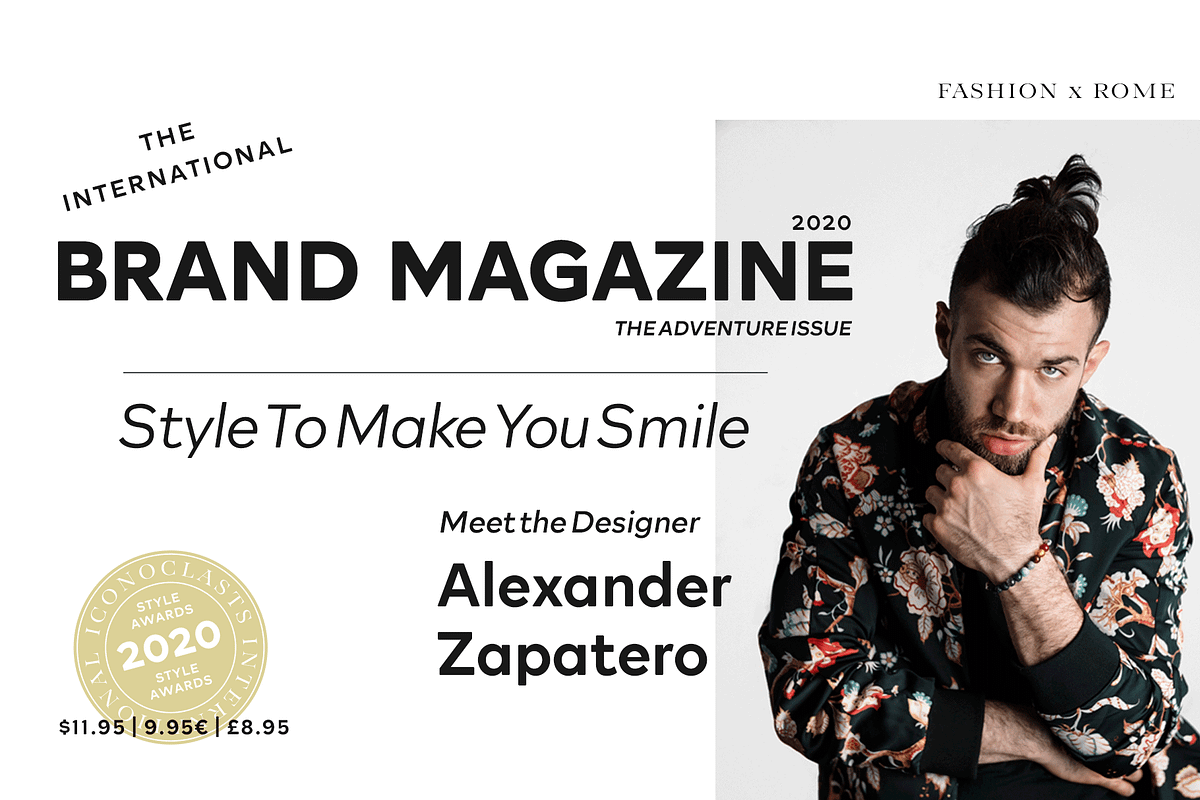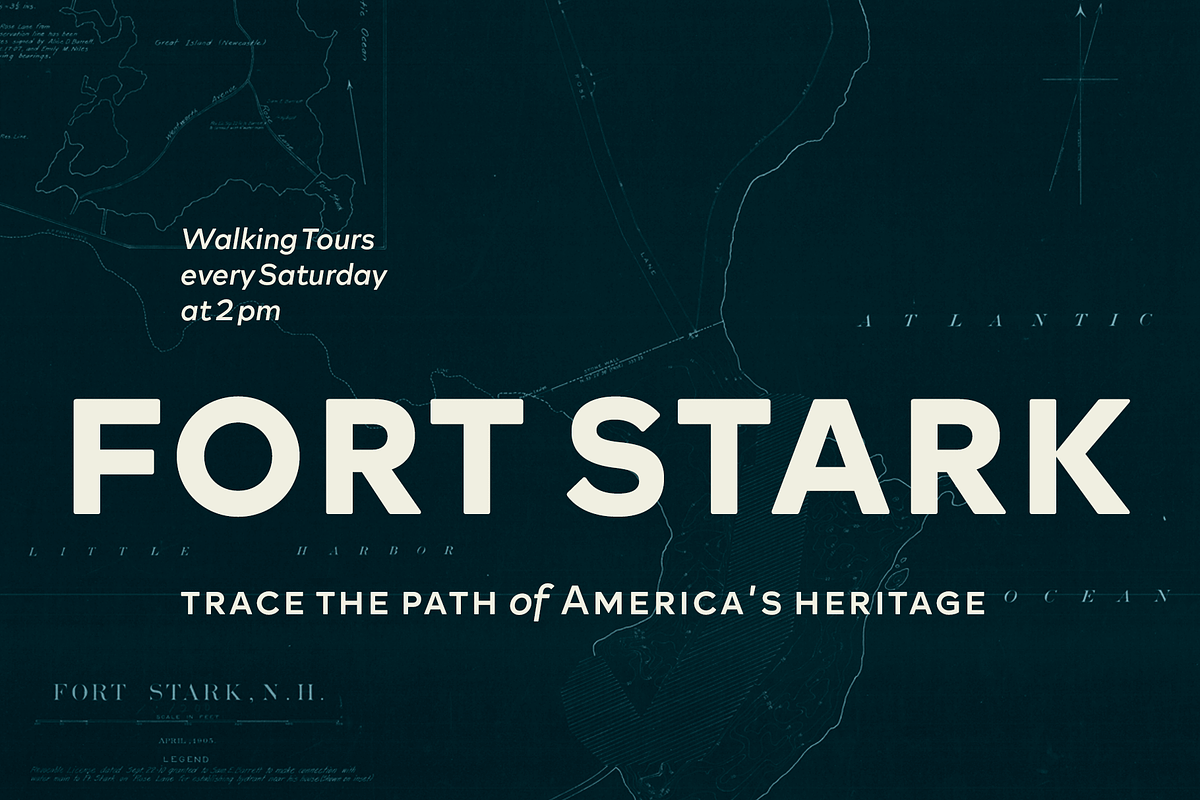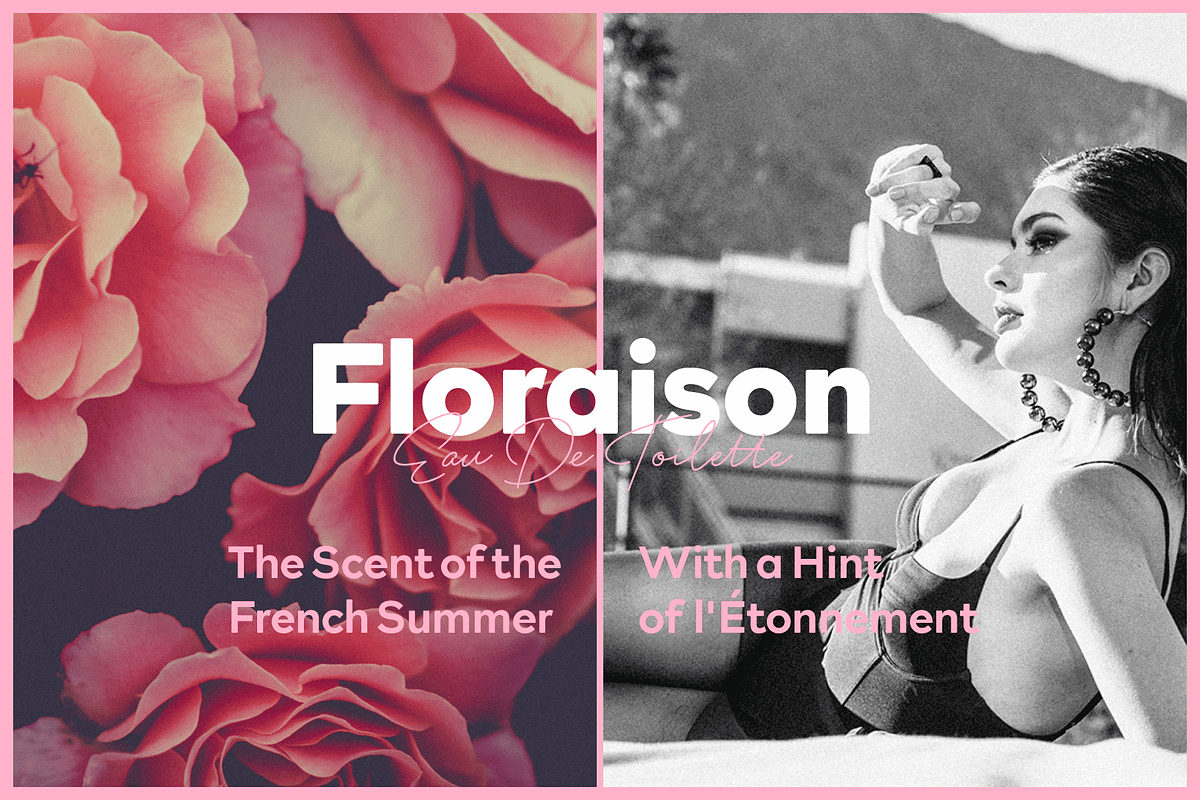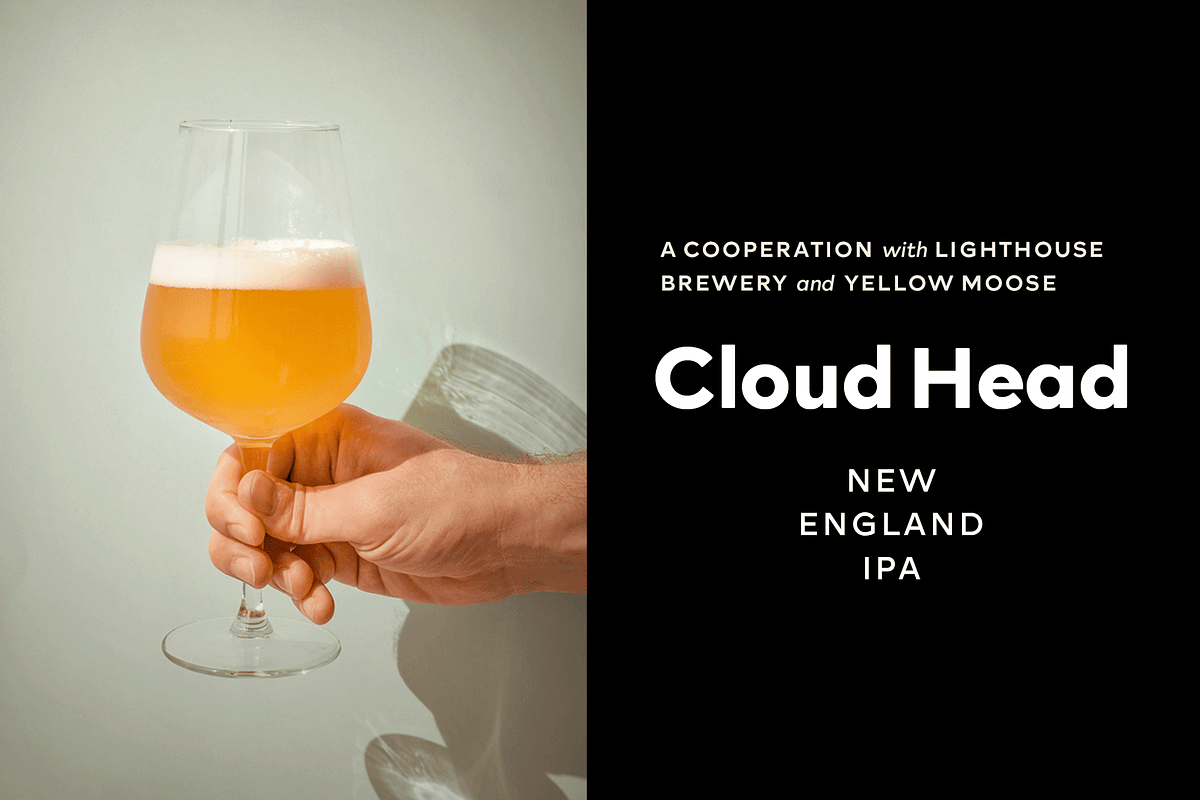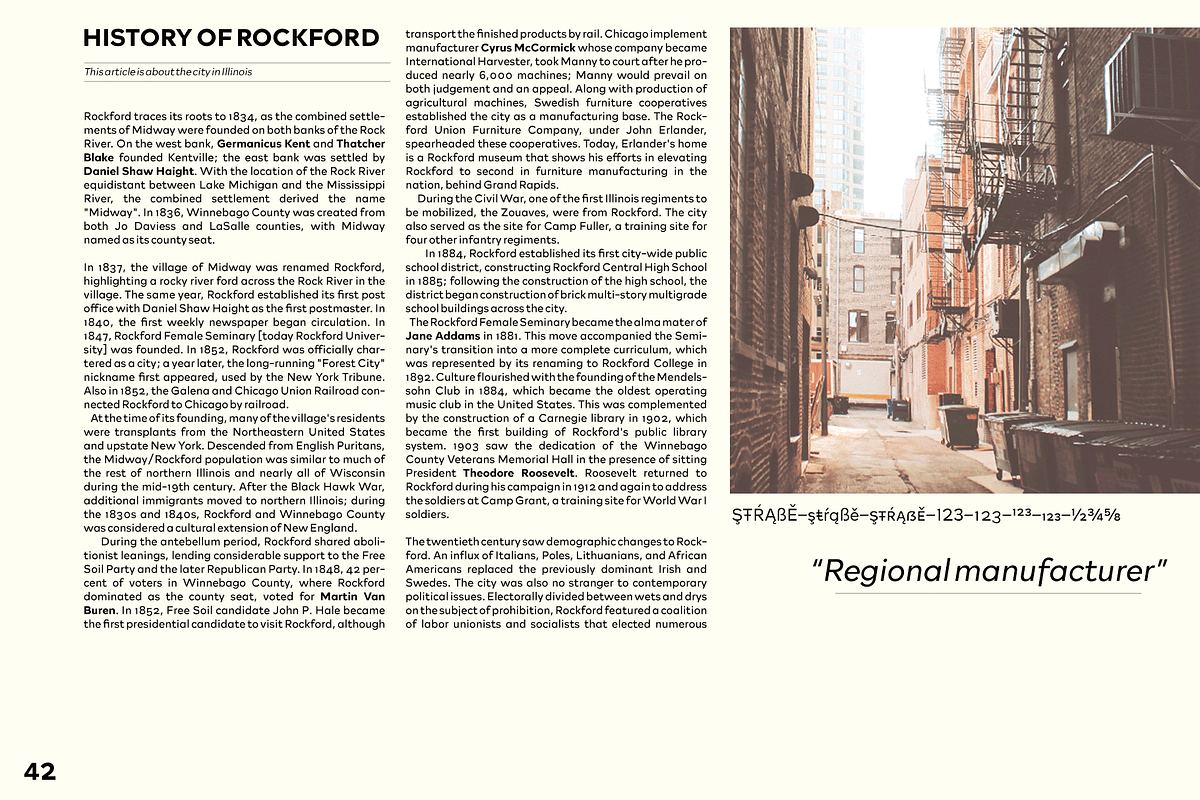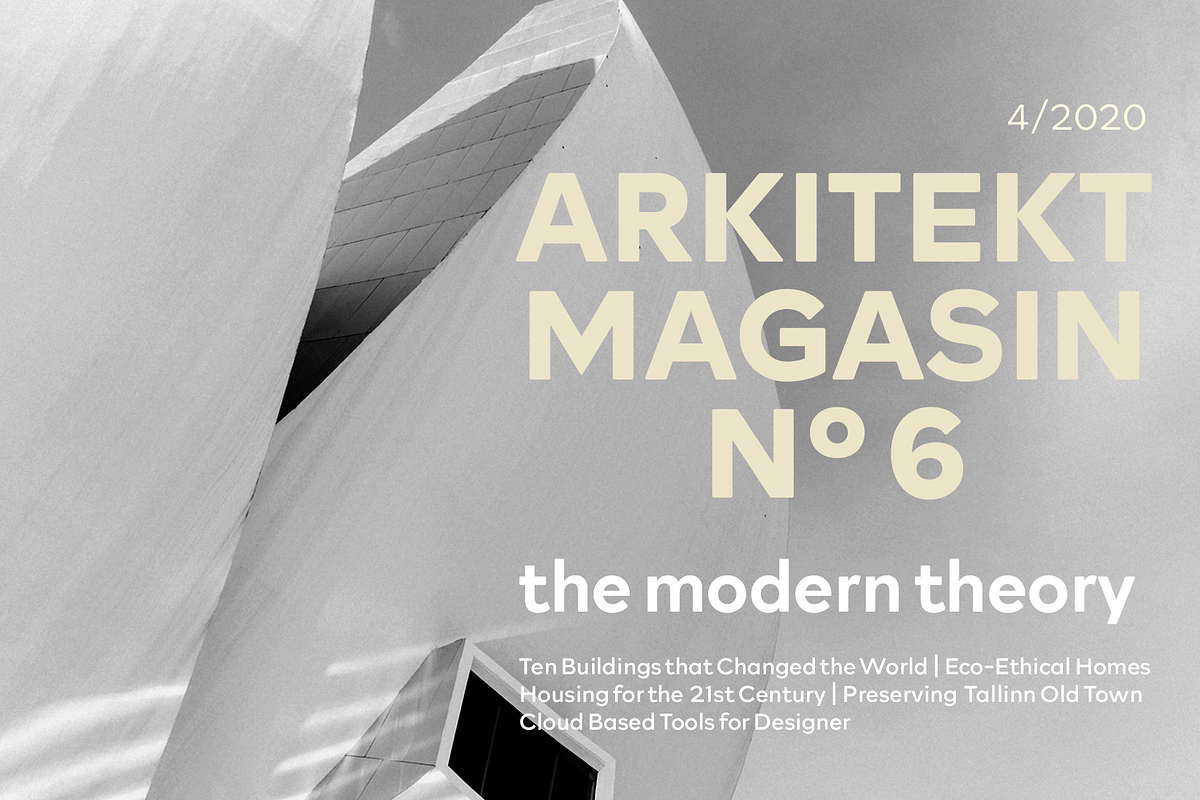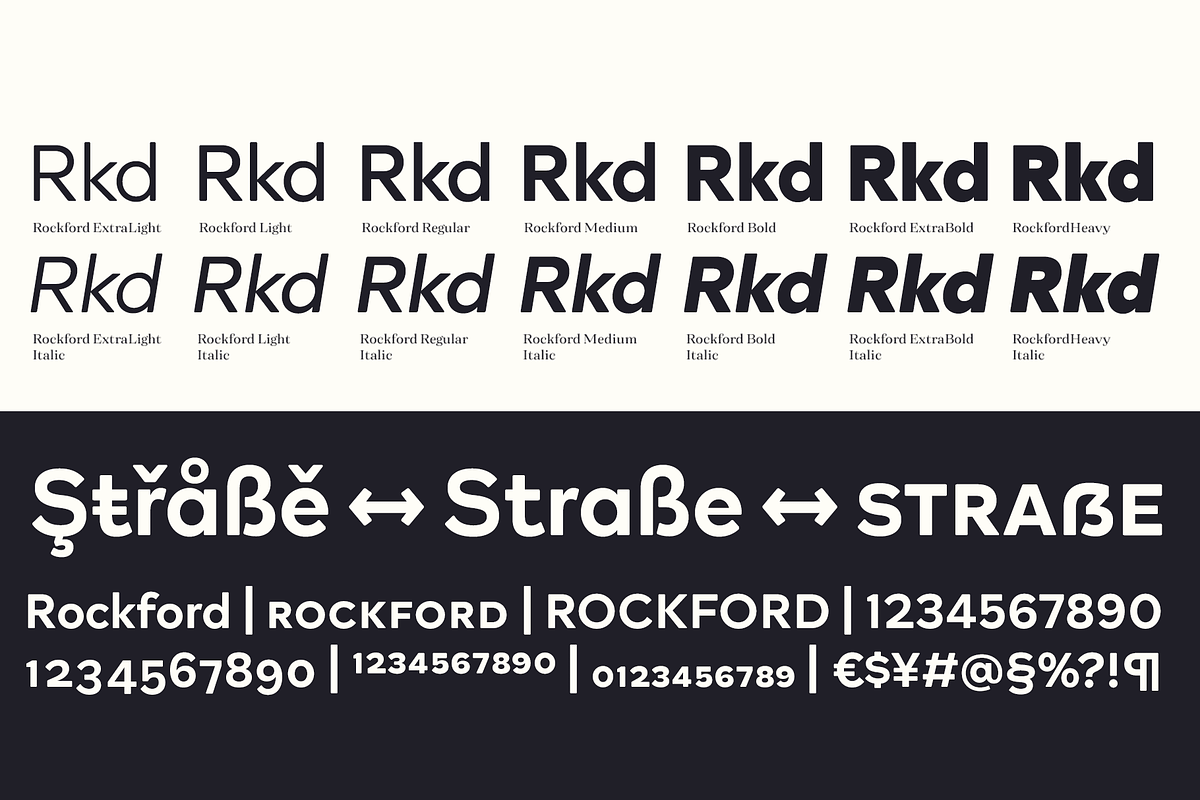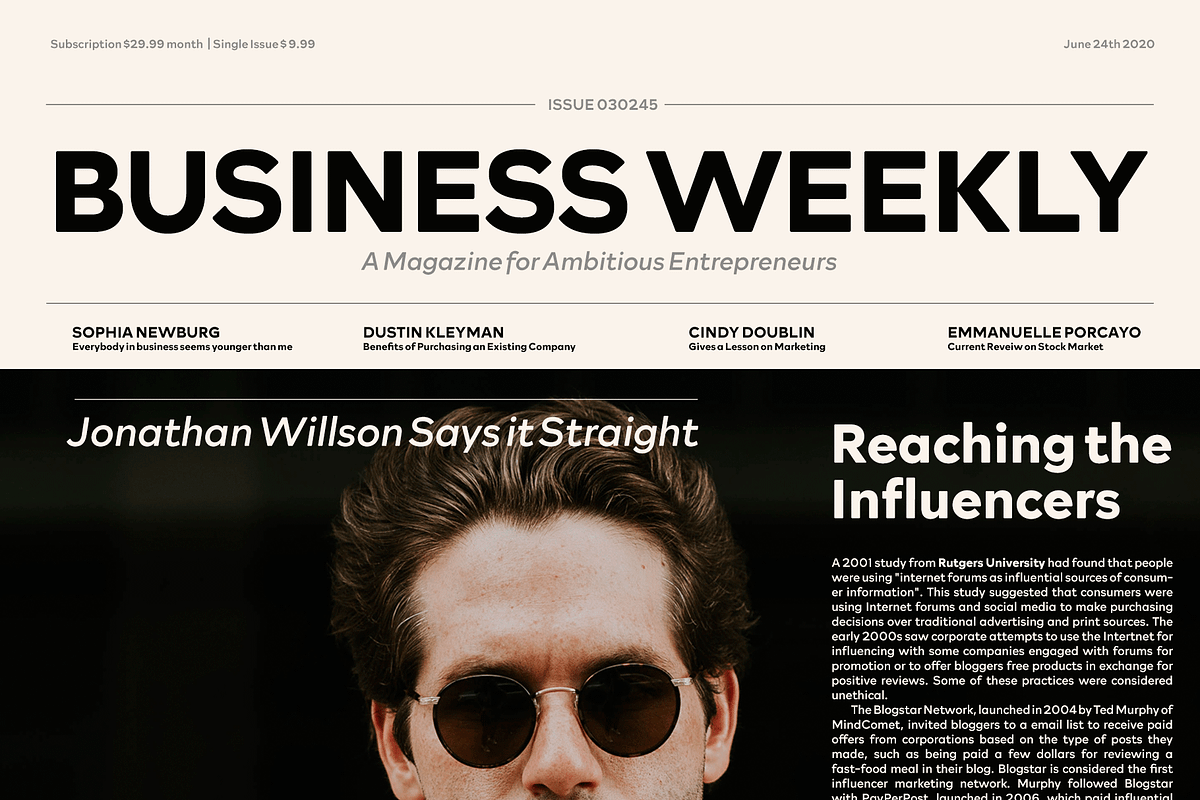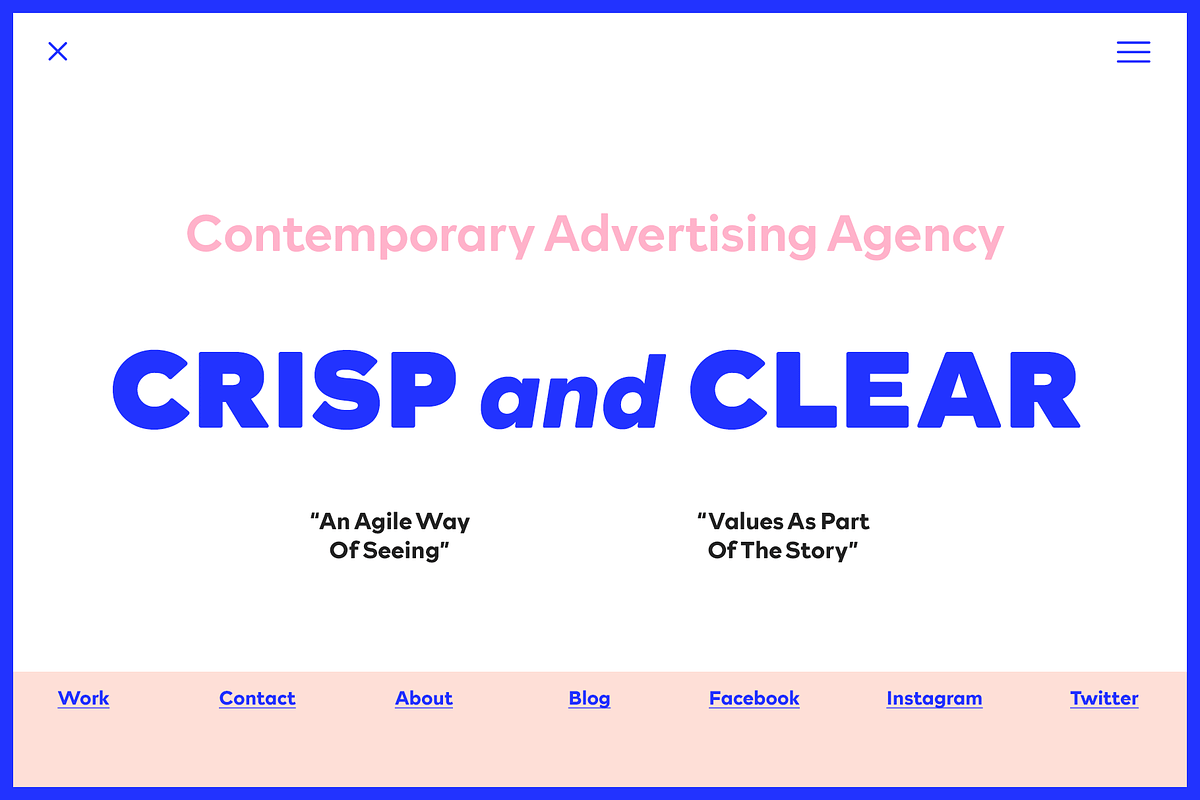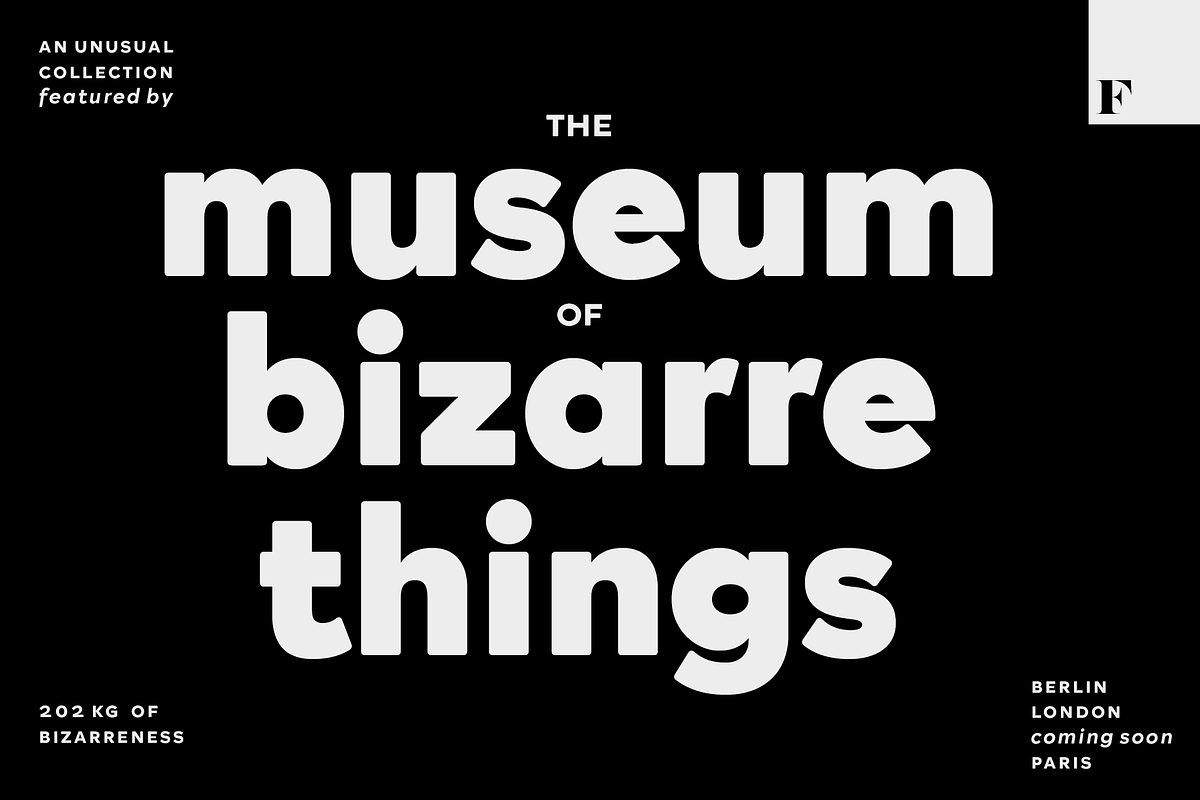
Rockford Geometric Sans Serif
Rockford is a geometrical Sans Serif with subtly rounded edges. Rockford comes in eight weights and matching Italics. With its large x-height and round features it’s both legible and friendly. It’s suited to cover a wide variety of tasks from editorial to brand design, advertising, logos and more.
Rockford is equipped with plenty of OpenType features to perform well. Rockford comes with Small Caps, Old Style Figures, superior and inferior figures and fractions.